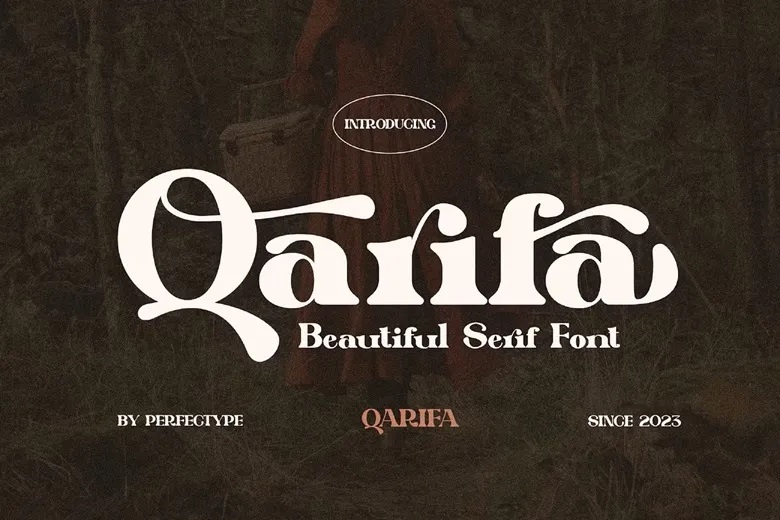
Qarifa Font
Qarifa is a distinct and quite beautiful font to be used in branding and logo designing beautiful serif typeface with a sophisticated modern look. The font is quite usable in your branding projects, logos, wedding designs, social media posts, advertisements, product packaging, product design, labels, photography, invitations, stationery, or any project.
Qarifa Serif Font